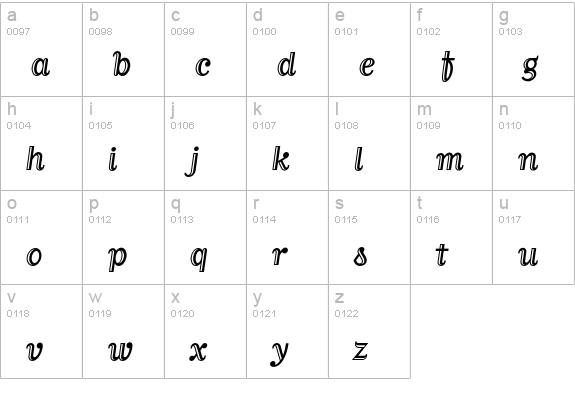
MatrixInlineScriptLining Font Details
MatrixInlineScriptLining font is a sleek and modern typeface that exudes sophistication and elegance. With its unique inline design and delicate script lining, this font is perfect for adding a touch of style to any project. The MatrixInlineScriptLining font is versatile and can be used for a variety of design purposes, from branding to invitations and more. Best of all, this font is available for free download at FontsMarket.com. Don't miss out on the opportunity to elevate your designs with the MatrixInlineScriptLining font today!